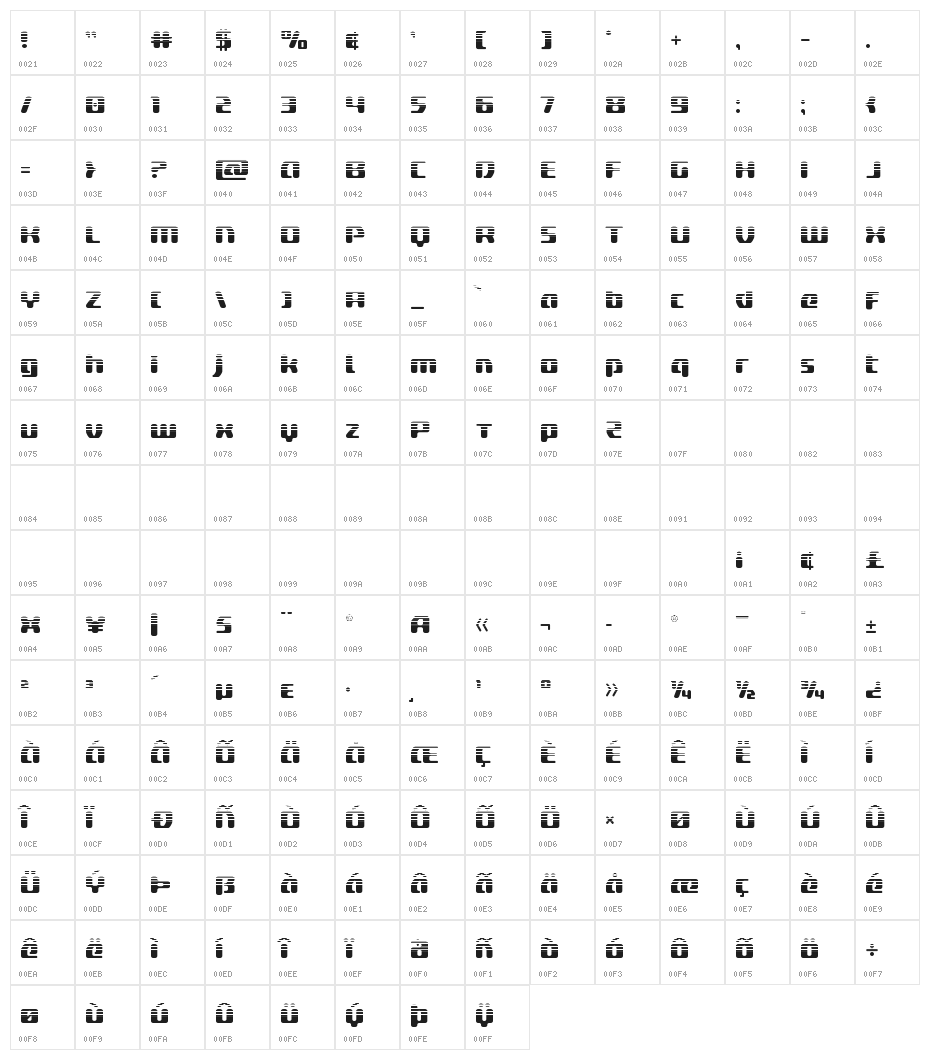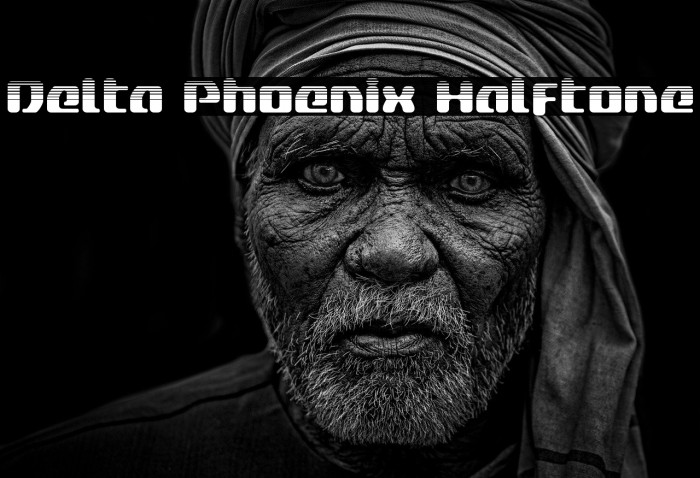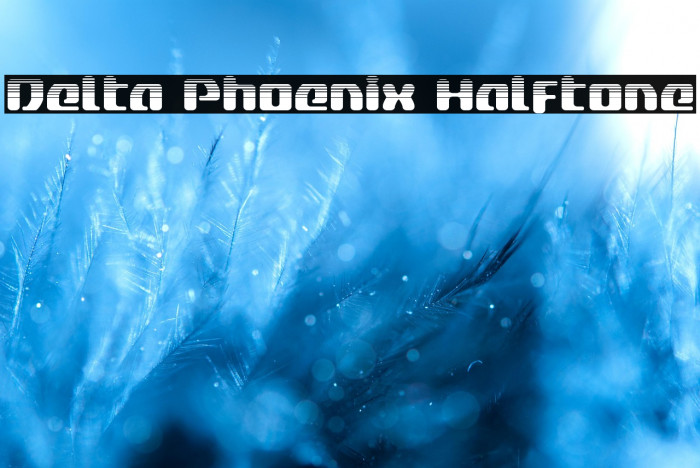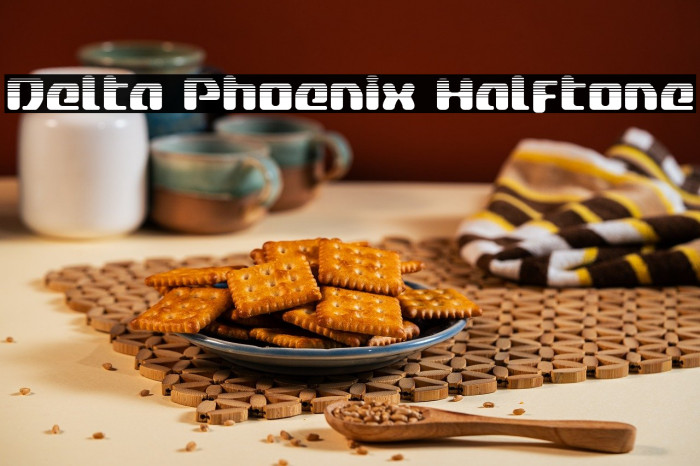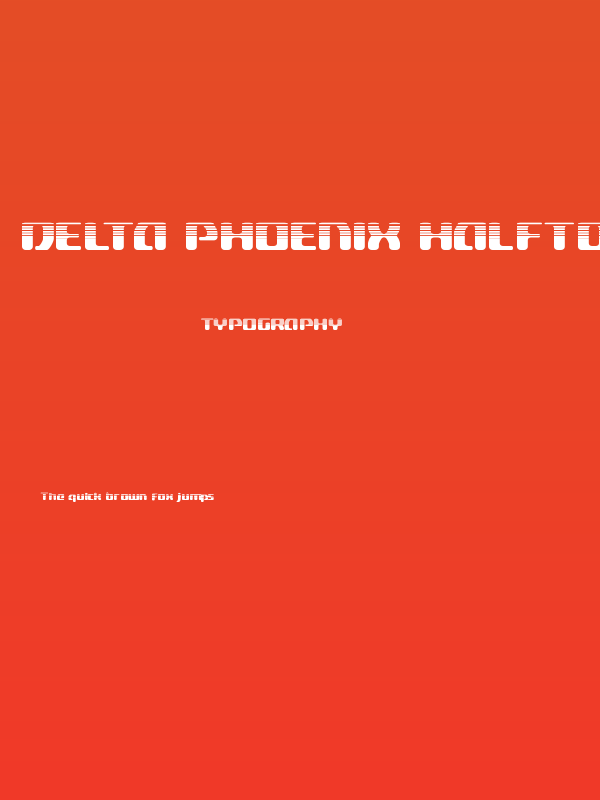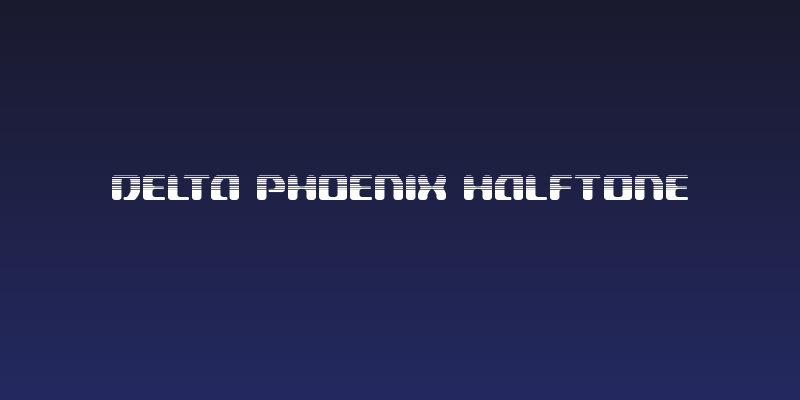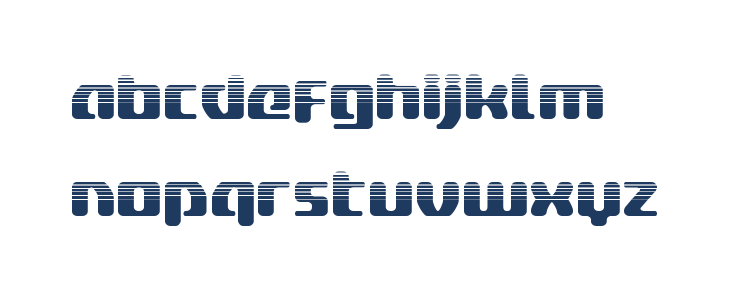
Delta Phoenix Halftone Font
Delta Phoenix Halftone Description
This font features a bold and futuristic design with a halftone effect that creates a sense of movement and depth. The characters are constructed with a series of horizontal lines that vary in thickness, giving it a unique, digital appearance. The uppercase and lowercase letters maintain a consistent style, with rounded edges and a blocky structure. The numbers and special characters follow the same design principles, ensuring uniformity across the font. This style is reminiscent of retro-futuristic aesthetics, making it ideal for projects that require a modern yet nostalgic touch.
| Overall Style | Futuristic, Retro |
| Proposed Projects | Ideal for sci-fi themed designs, video game graphics, tech branding, and modern posters. |